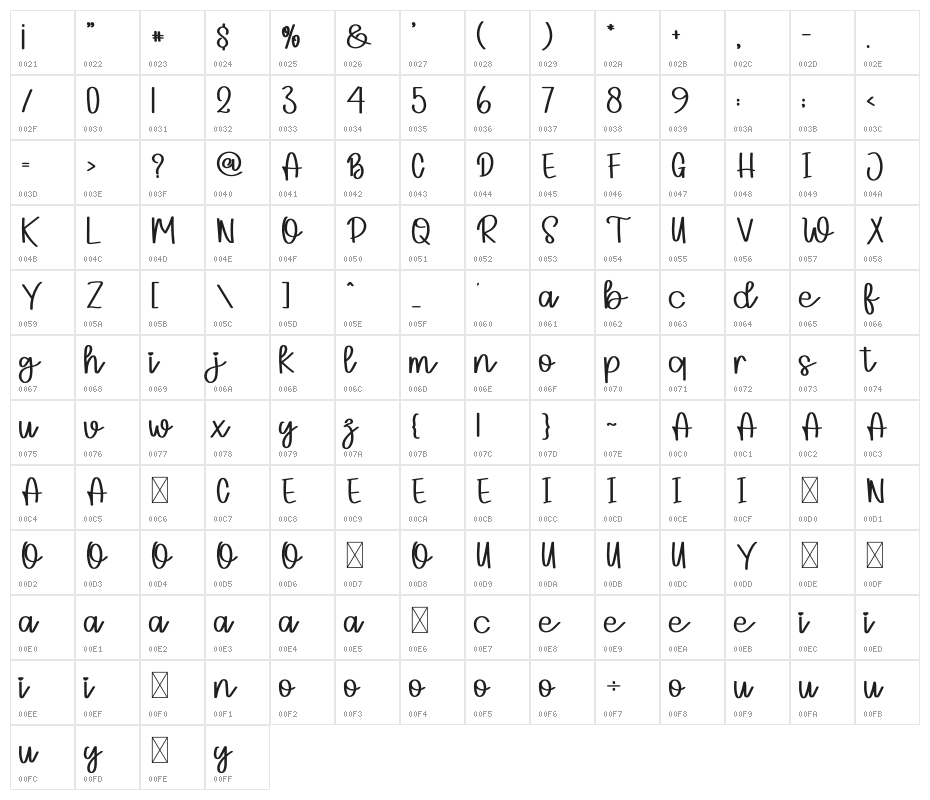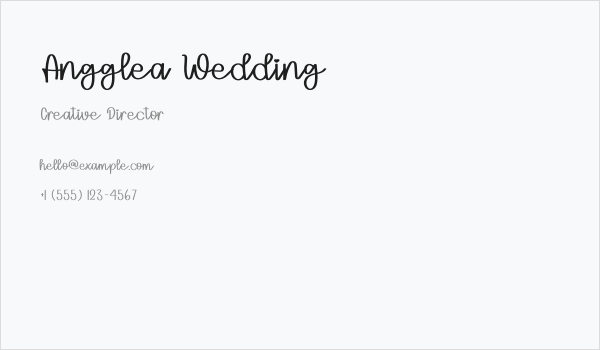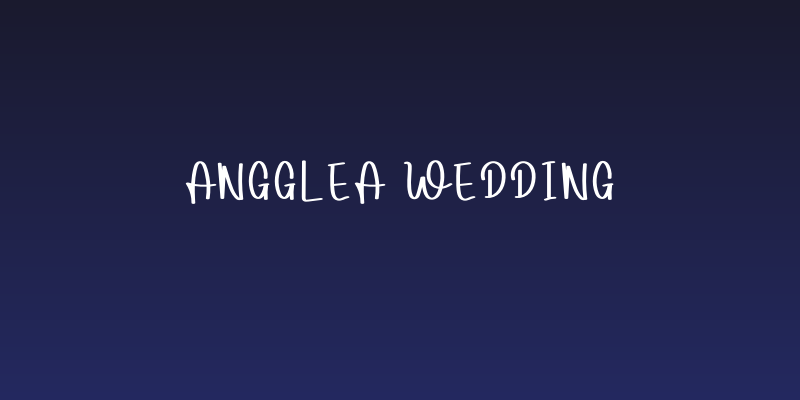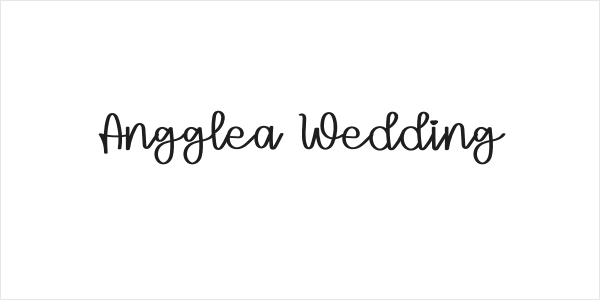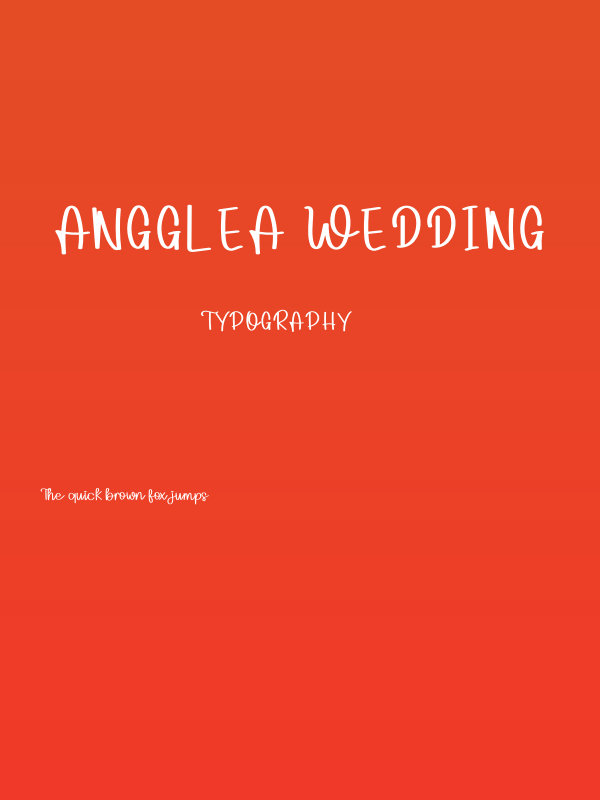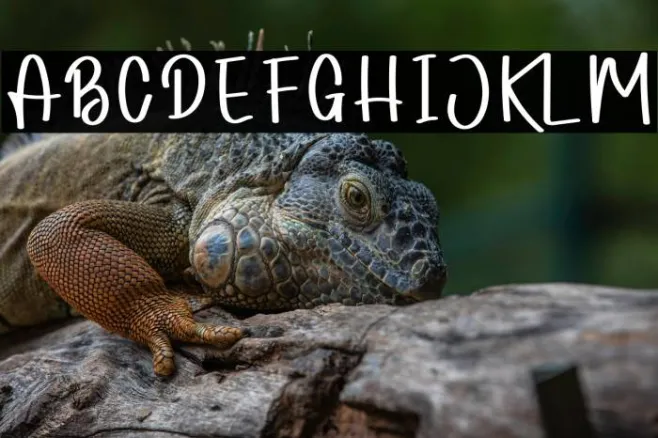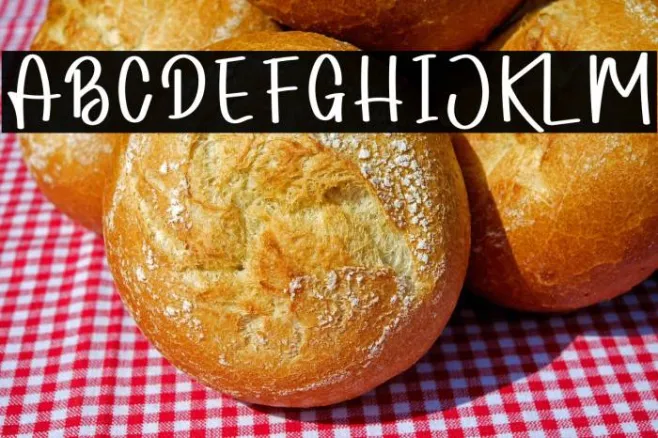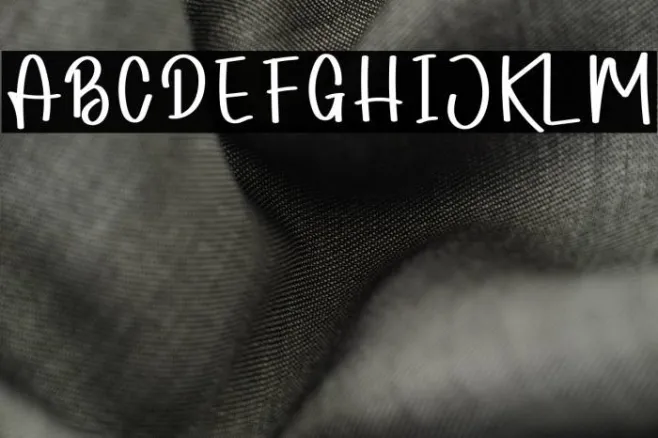
Angglea Wedding Font
Angglea Wedding Description
This font features a charming handwritten style with a playful and elegant touch. The uppercase letters are bold and slightly whimsical, while the lowercase letters exhibit a smooth, flowing script that adds a personal and inviting feel. The numbers are clear and consistent, maintaining the playful aesthetic. Special characters are designed to complement the overall style, making it versatile for various uses. The font's unique character and friendly appearance make it suitable for creative projects that require a personal touch.
| Use Case | Logos, Invitations, Greeting cards |
| Proposed Projects | Ideal for wedding invitations, greeting cards, personal branding, and creative projects that require a warm and inviting aesthetic. |